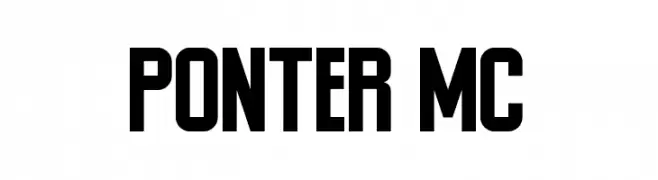
A bold, impactful font with thick strokes and a playful touch.
A bold, strong font ideal for impactful headlines and designs.
A bold, heavy font with thick strokes and uniform width, perfect for impactful designs.
A bold, narrow font with a modern and impactful design.
A bold, geometric typeface with a modern and compact design.
A bold, condensed font with a modern and impactful style.
A bold, geometric font with a modern and impactful design.
A bold, condensed sans-serif font with a modern and impactful style.
A bold and impactful typeface with a modern, clean design.